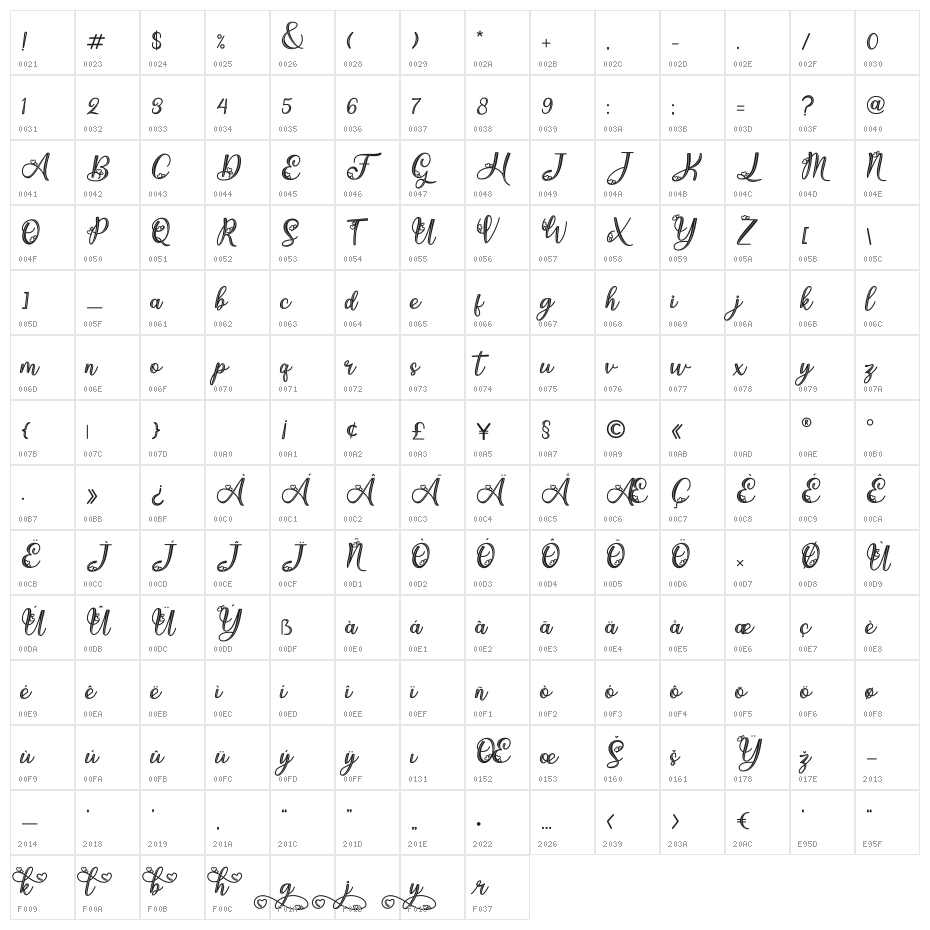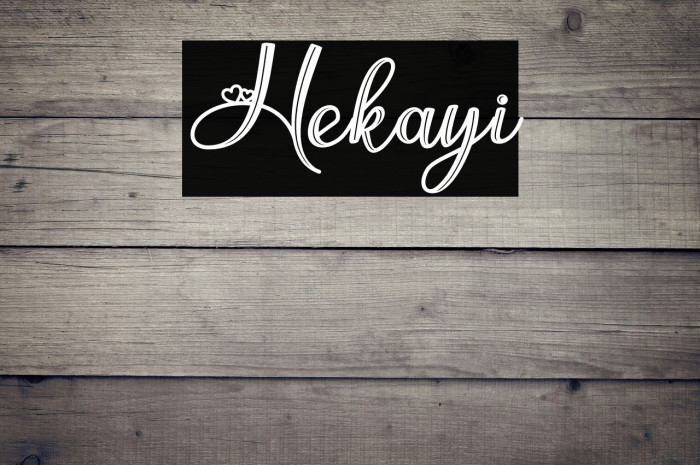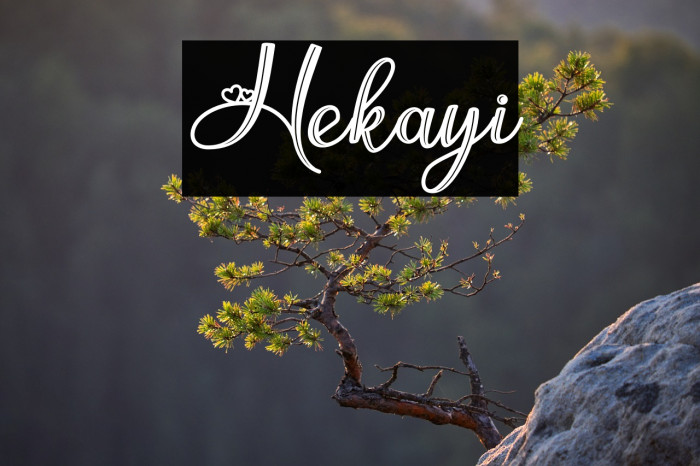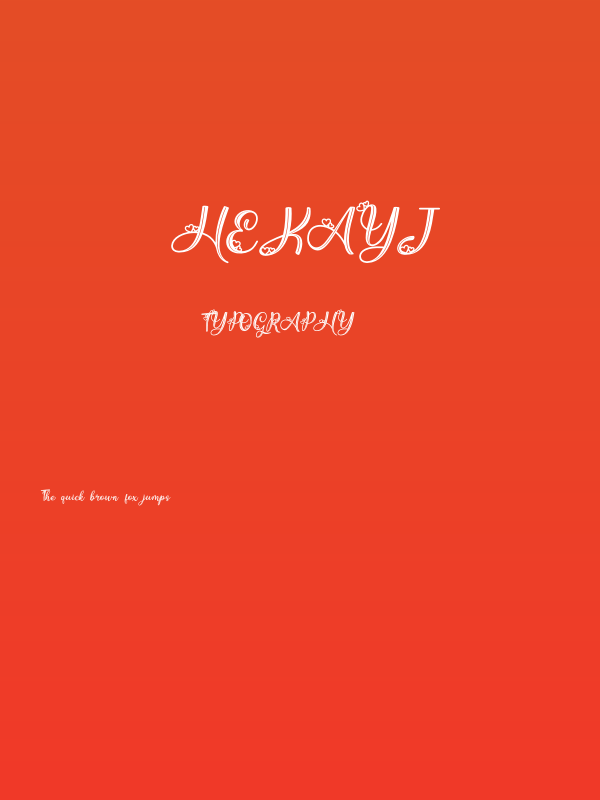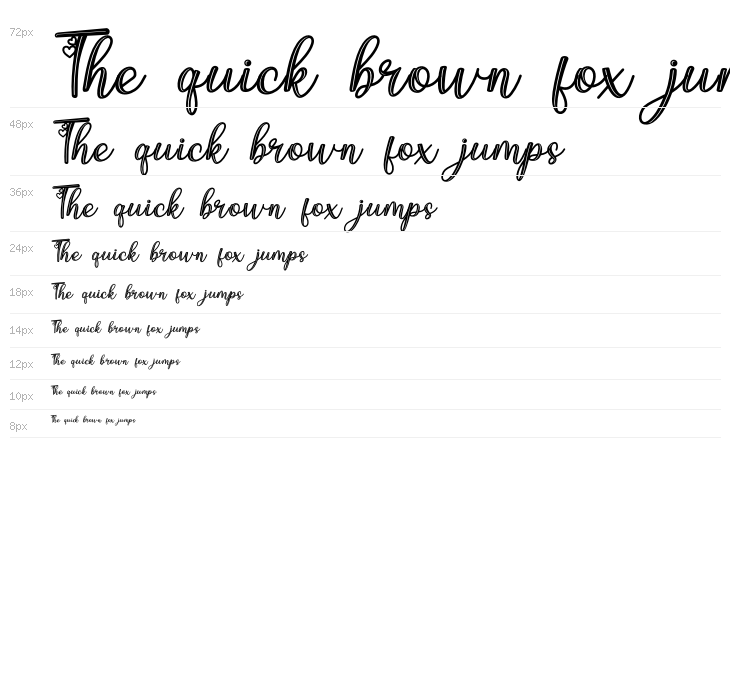
Hekayi Font
Hekayi Description
This font features an elegant and decorative script style, characterized by its flowing, cursive letters adorned with small floral embellishments. The uppercase letters are particularly ornate, with loops and swirls that add a touch of sophistication and whimsy. The lowercase letters maintain a consistent cursive style, offering a more subdued elegance compared to the uppercase. The numerals are clear and maintain the script's overall aesthetic, while the special characters integrate seamlessly with the font's decorative theme. This font is ideal for projects that require a touch of elegance and creativity, such as wedding invitations, greeting cards, or branding for luxury products.